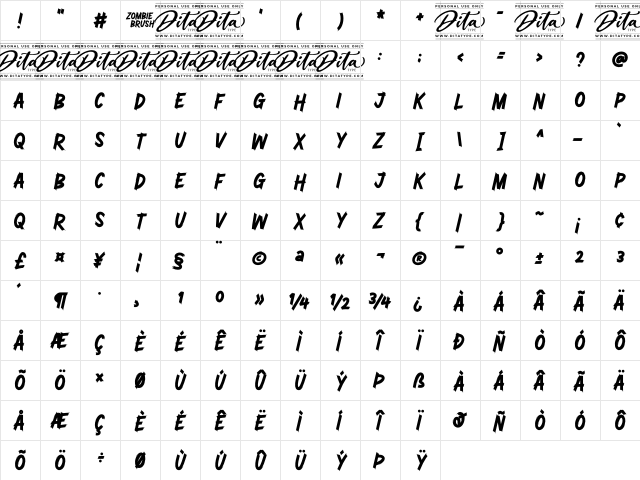
Complete Zombie Brush Personal Use Regular glyph index. Displaying only characters natively supported by Zombie Brush Personal Use Regular font.
Zombie Brush Personal Use flows with the natural rhythm of handwritten lettering, making it ideal for designs that call for warmth and personal expression.
Font Pairing: Combine Zombie Brush Personal Use with a simple geometric sans for maximum contrast - the tension between flowing curves and clean structure is a classic typographic pairing.
Pro Tip: Use Zombie Brush Personal Use for short runs of text - names, titles, or taglines. Extended body copy in script faces tires the eye quickly.